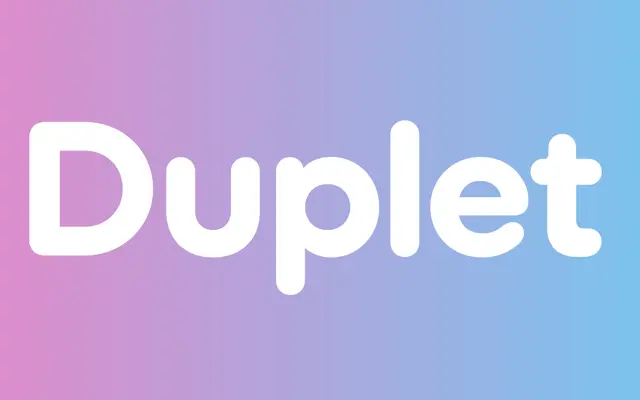
Duplet Rounded
A rounded companion to ITF's Duplet family, offered in seven weights with matching italics for a total of fourteen styles.
Part of the broader Duplet family alongside Duplet and Duplet Open, the Rounded cut applies softened terminals throughout, lending a gentler character suited to UI, branding and editorial contexts where warmth is preferred over sharpness. Seven weights run from Thin to Extrabold, each paired with an italic. The close relationship to its sibling families allows for mixing across the Duplet range.
A rounded variant of the Duplet family, characterised by softened terminals on an otherwise clean geometric or humanist sans structure, placing it firmly in the rounded sans subcategory.